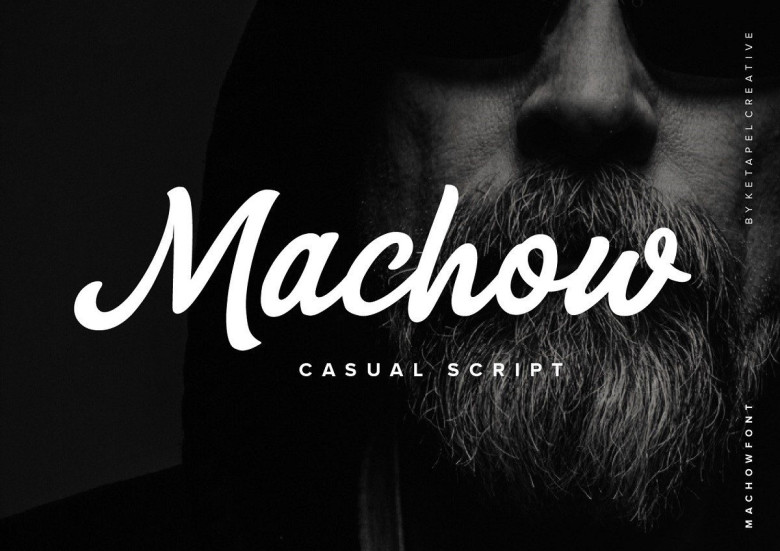
Machow Bold Casual Script Font
Machow Bold Script Font is a flowing and cute handwritten script font. It maintains its classy calligraphic influences while feeling contemporary and fresh. This versatility will appeal to a wide range of crafty ideas, from letterheads and titles, to stationery.